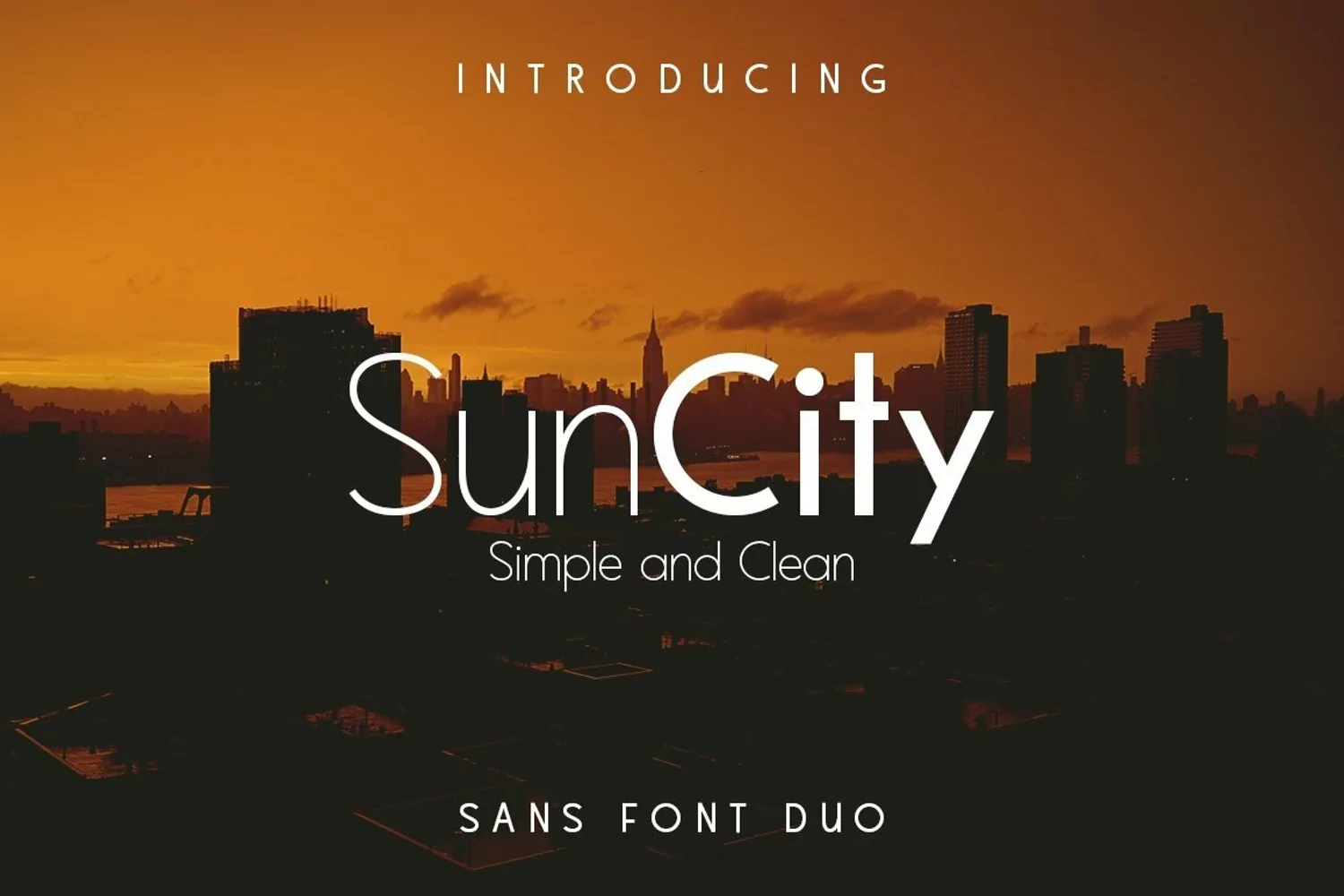
Web Font Sun City - Font Duo
Sun City is a clean and smooth serif font duo, perfect for TV advertisements, brochures, magazines, branding, logos and more